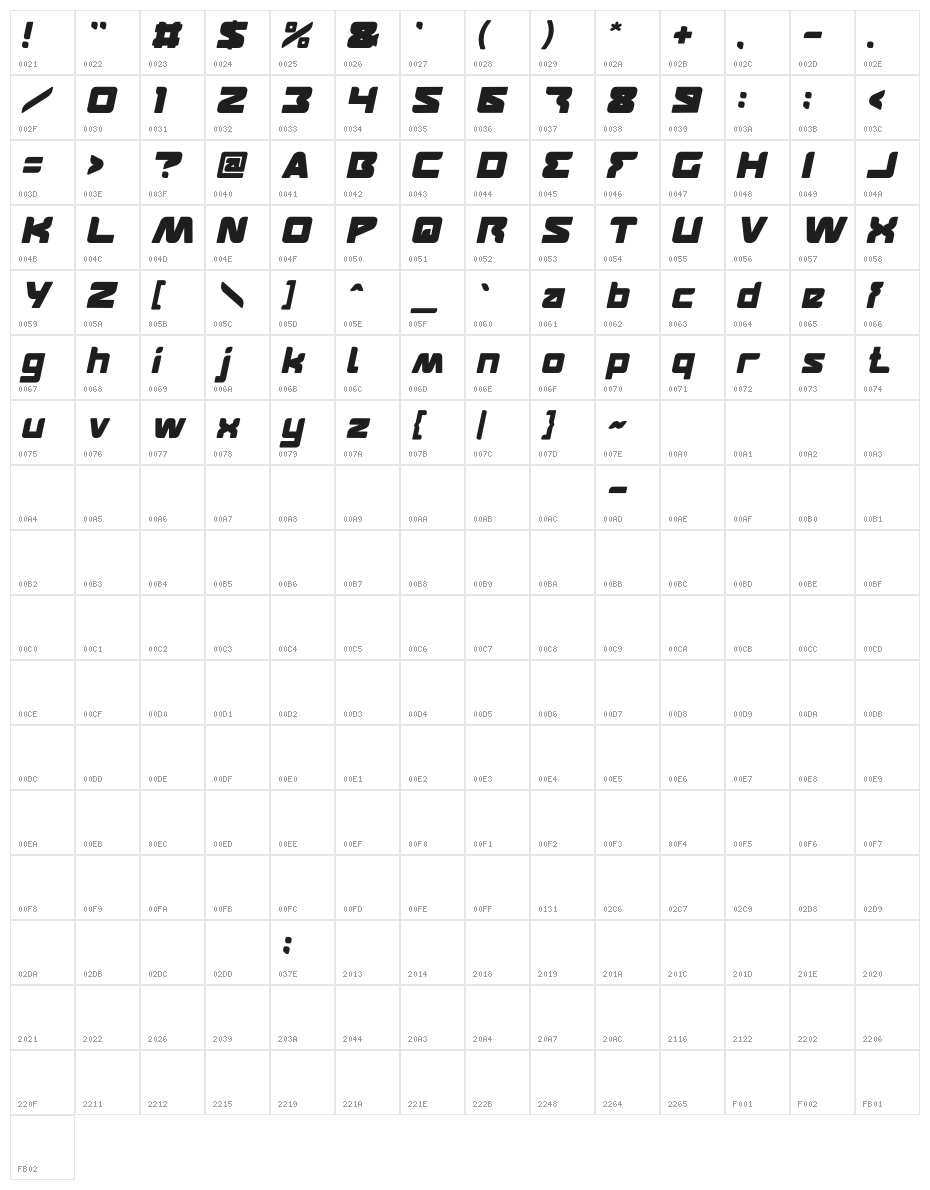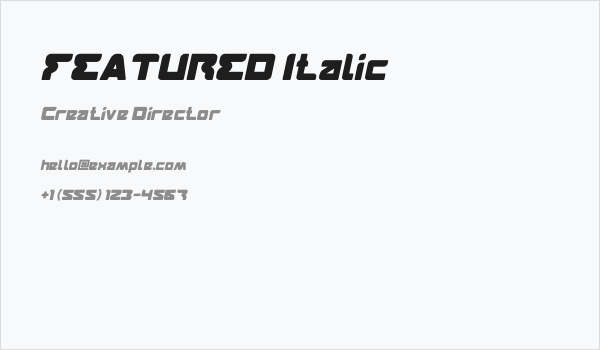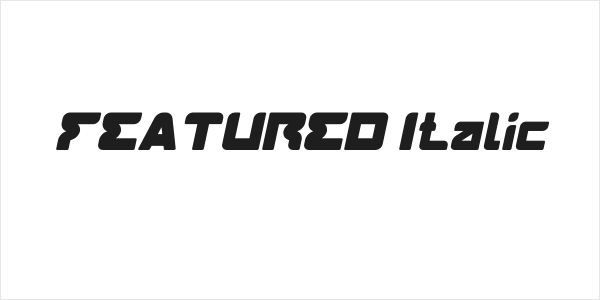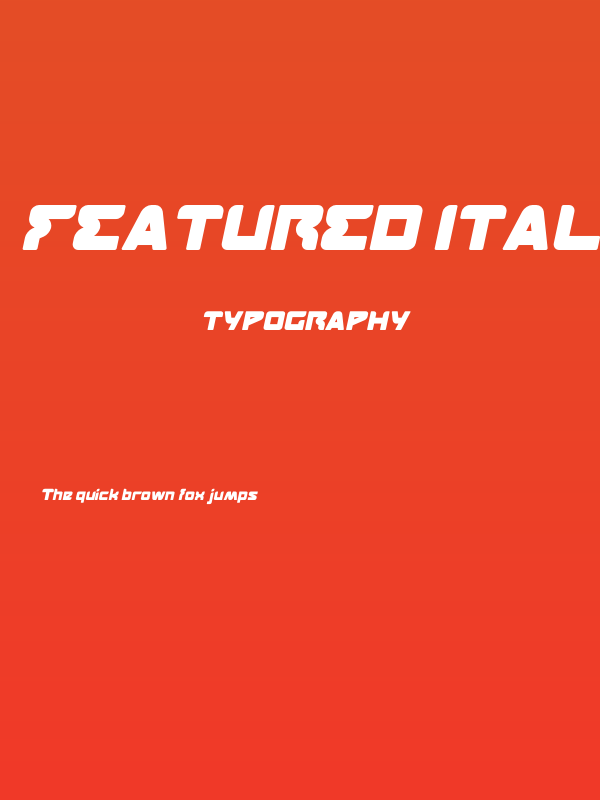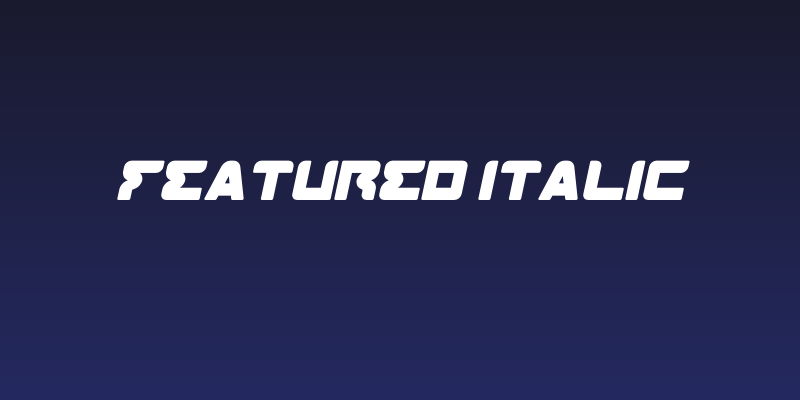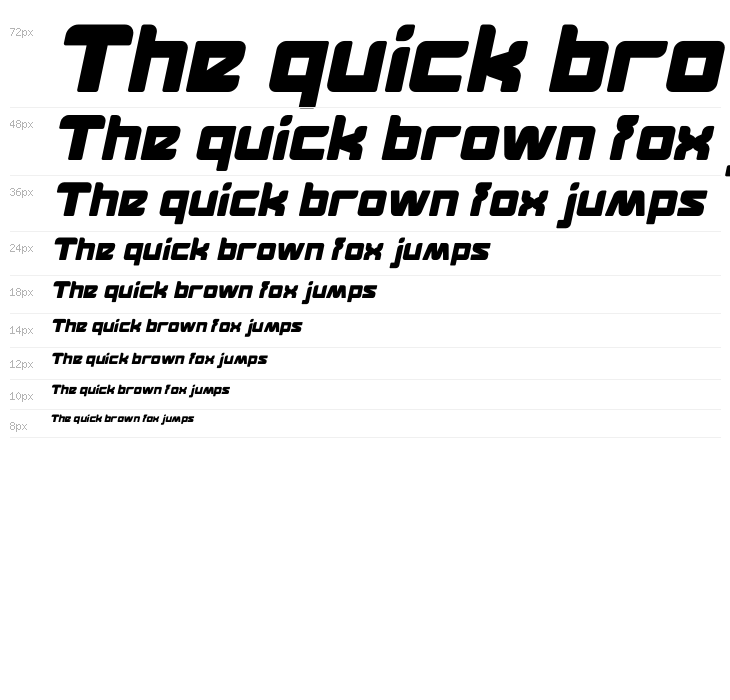
FEATURED Italic Font
FEATURED Italic Description
This font features a bold, italicized style with a modern and dynamic appearance. The characters are designed with a forward-leaning slant, giving a sense of motion and speed. The strokes are thick and consistent, providing a strong visual impact. The uppercase and lowercase letters maintain a cohesive look, with rounded edges and a slightly condensed form. The numerals and special characters follow the same design principles, ensuring uniformity across all elements. This font is ideal for projects that require a bold statement and a contemporary feel.
| Proposed Projects | Ideal for sports branding, dynamic posters, modern advertisements, and tech-related designs. |